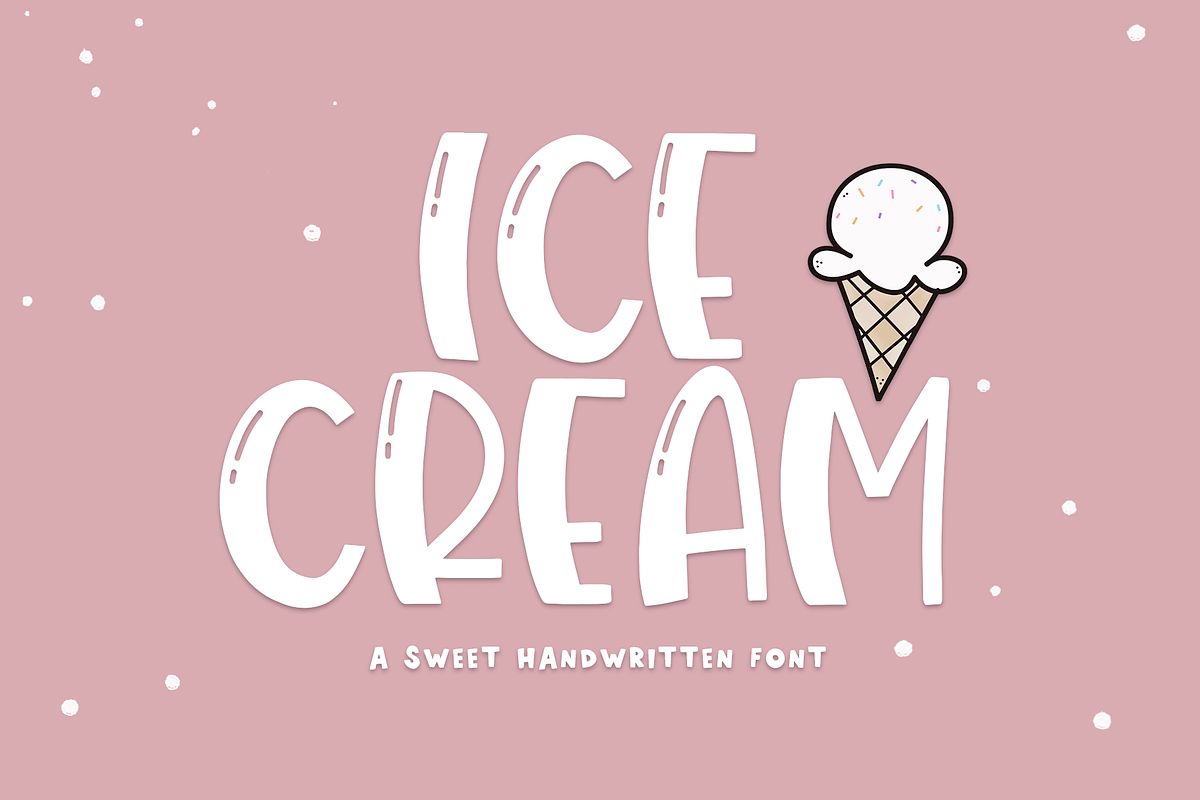
Ice Cream - A Fun Handwritten Font Free Download is a playful, lighthearted typeface that brings a sense of fun and creativity to your designs. With its rounded edges and informal, handwritten style, this font is perfect for children’s products, ice cream shops, social media posts, party invitations, and any design project that needs a sweet, whimsical touch.
Using the Ice Cream - A Fun Handwritten Font Free Download adds a casual and charming vibe to your projects. Whether you're designing a logo for a playful brand, crafting a party invitation, or creating cheerful social media content, this font brings personality and warmth to your typography.